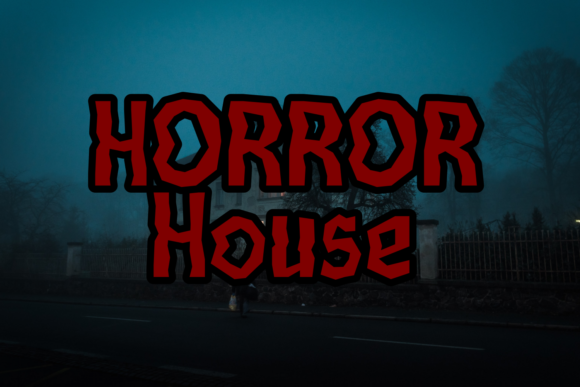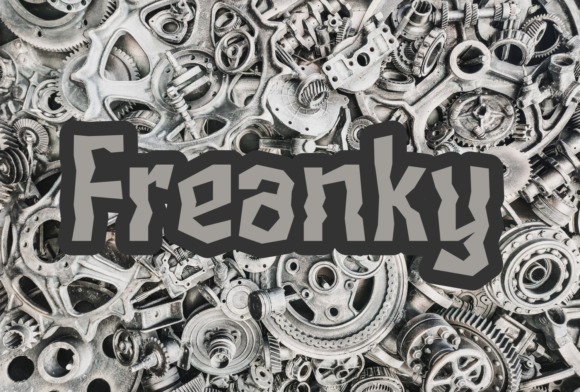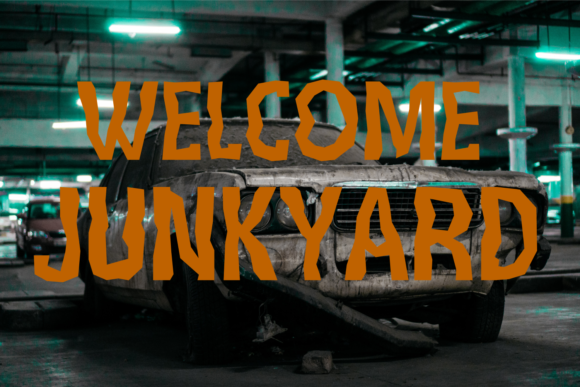
Introduction to Krezzz Font
Freaky is a fun and playful display font, with a scary theme.
It is perfectly suitable for any Halloween-related project or crafty idea The only limit is your imagination.
Why Choose Krezzz Font?
Krezzz Font offers exceptional quality and versatility, making it a valuable addition to your design toolkit. Whether you’re creating for personal projects or commercial use, Krezzz Font delivers professional results.